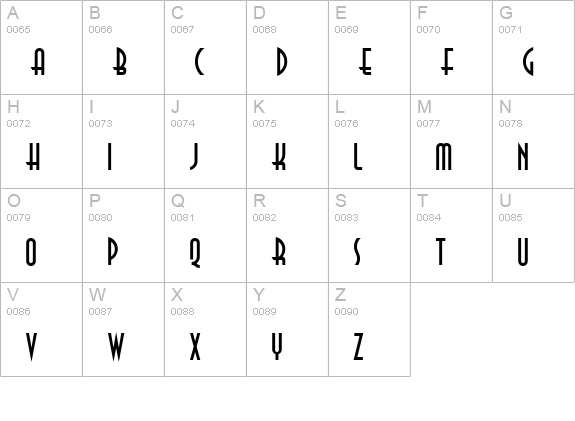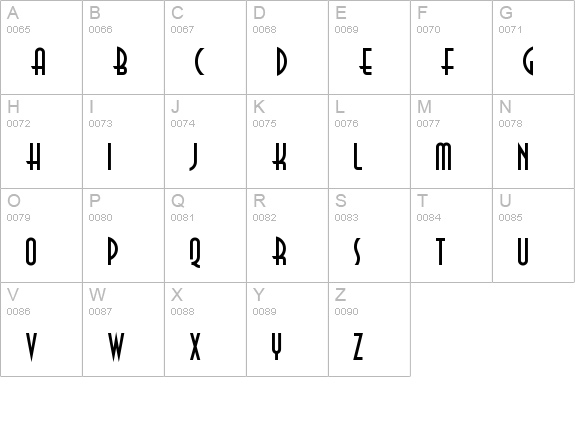
Anna ICG Font Details
Anna ICG font is a beautiful and elegant typeface that exudes sophistication and style. With its unique design and intricate details, this font is perfect for adding a touch of charm to any project. The graceful curves and delicate lines of Anna ICG font make it a versatile choice for a wide range of design applications. What makes Anna ICG font even more appealing is that it is available for free download at FontsMarket.com. This means that you can easily access this stunning font and use it in your projects without any cost. Whether you're working on a personal project or a professional design, Anna ICG font is sure to elevate your work with its timeless beauty and classic appeal. Download Anna ICG font today and add a touch of elegance to your designs.